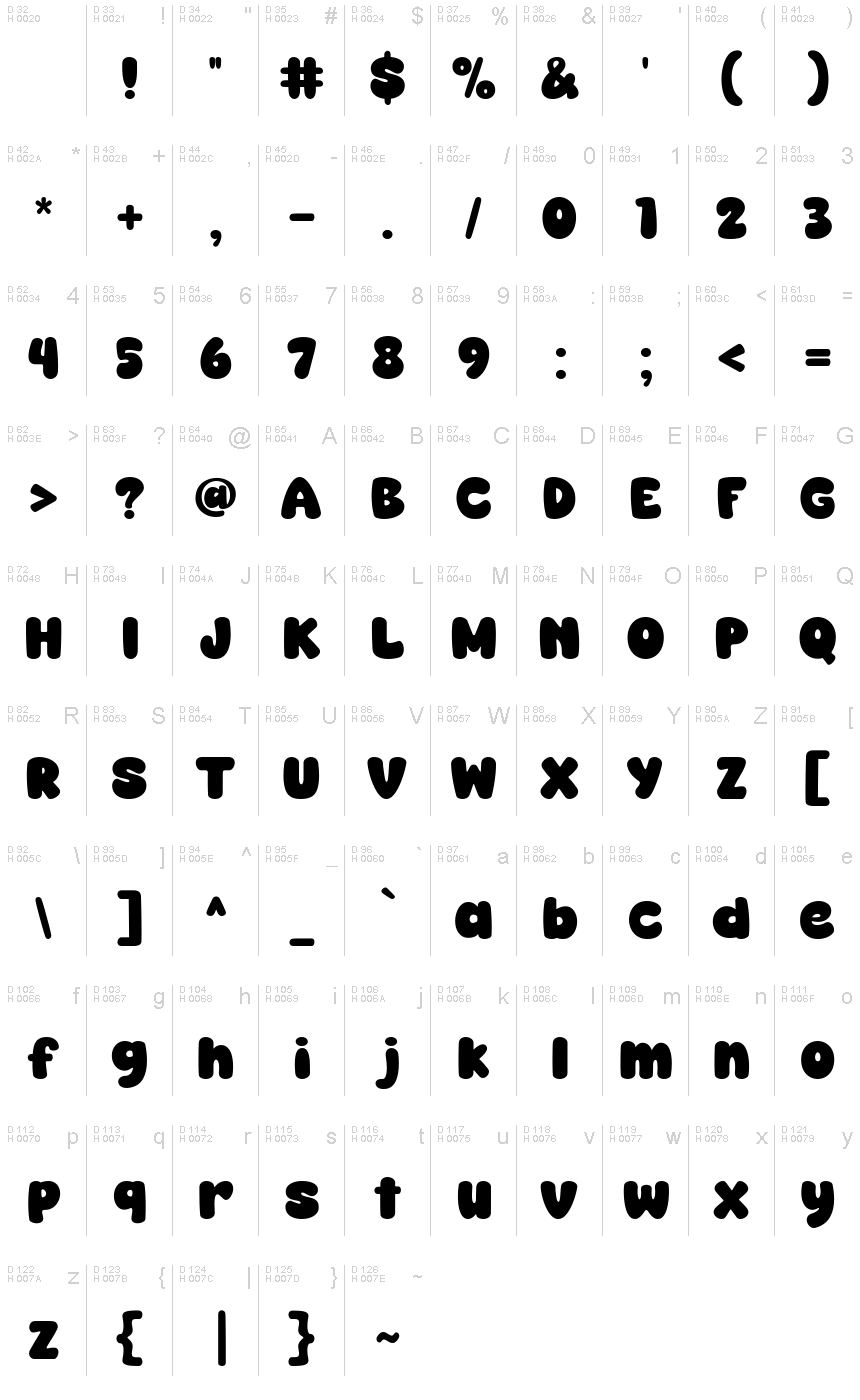
Super Caramel
Super Caramel font - designed by fsuarez913 is a charming display font with warm and fun handwritten vibes. This type is characterized by its casual look, playful style and wonderful uniqueness and originality. The characters have rounded messy shapes with extraordinary thick. Exactly what you need for your next humorous design or craft project!
With Super Caramel you can be extremely original! This cute cartoon-inspired font is perfect for comic designs, nursery decorations, kid activity books, birthday party invitations, fabric design, quotes generating and so much more! All characters have unique proportions so they always look amazing together - combine all the included items to create that absolutely cheerful vibe of a joyful holiday!